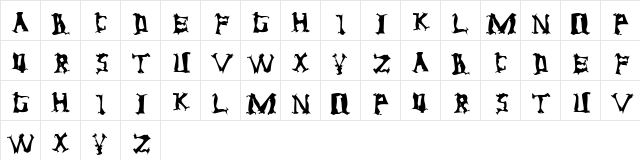
Antioch Bitchslap Regular
Design Context for Antioch Bitchslap Typeface
Antioch Bitchslap is a composed and adaptable typeface that performs quietly and consistently across a wide range of design contexts.